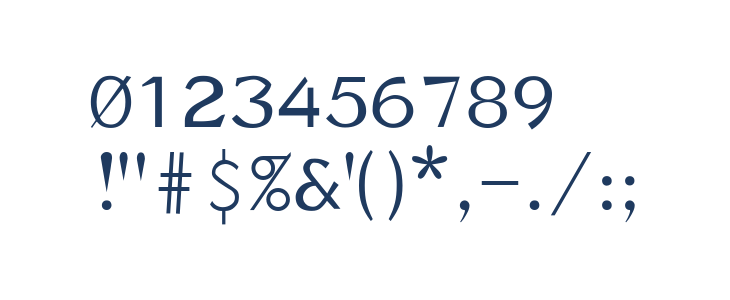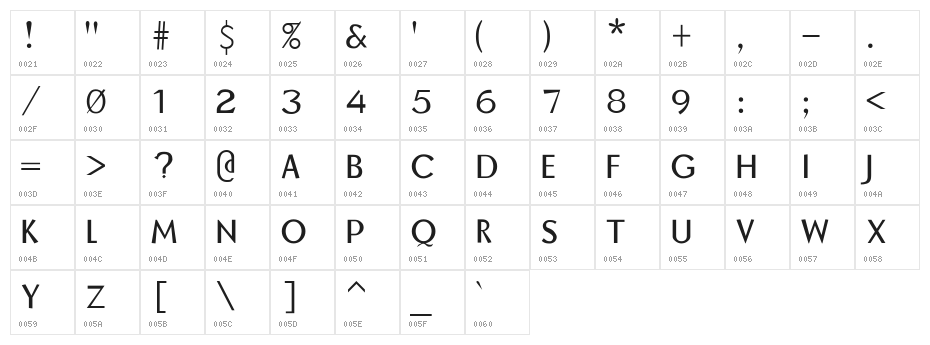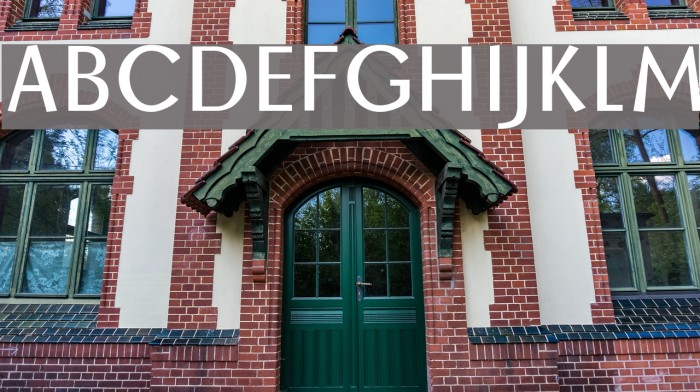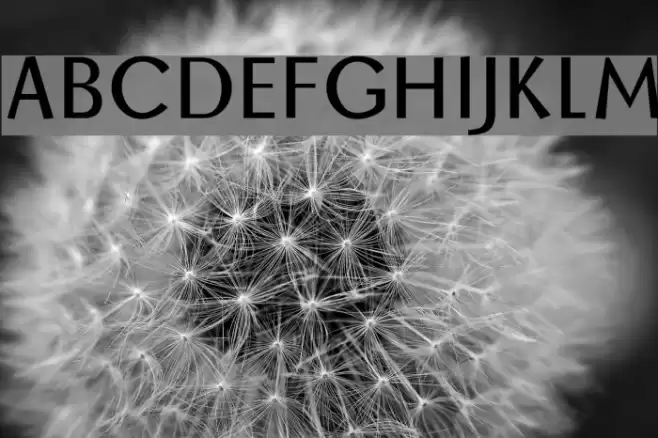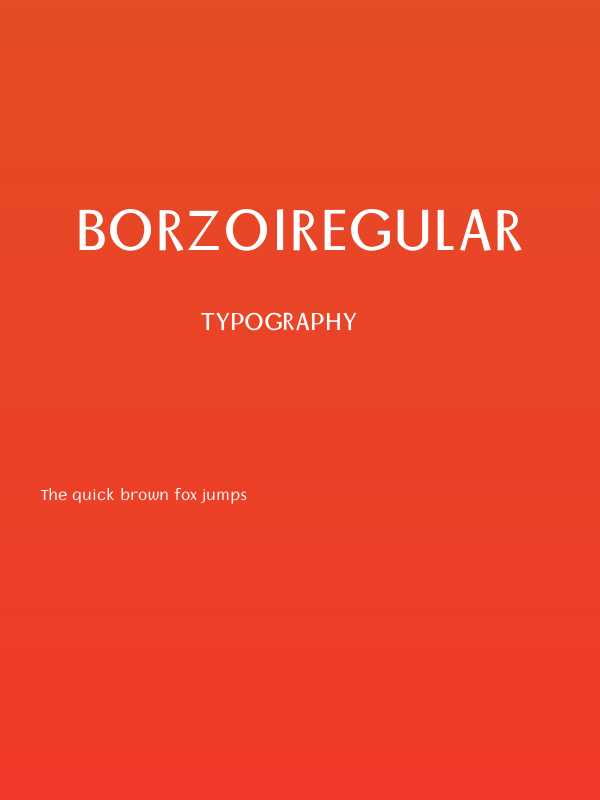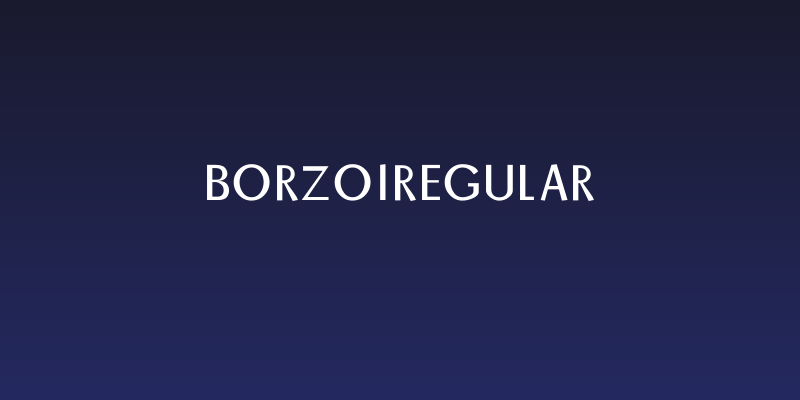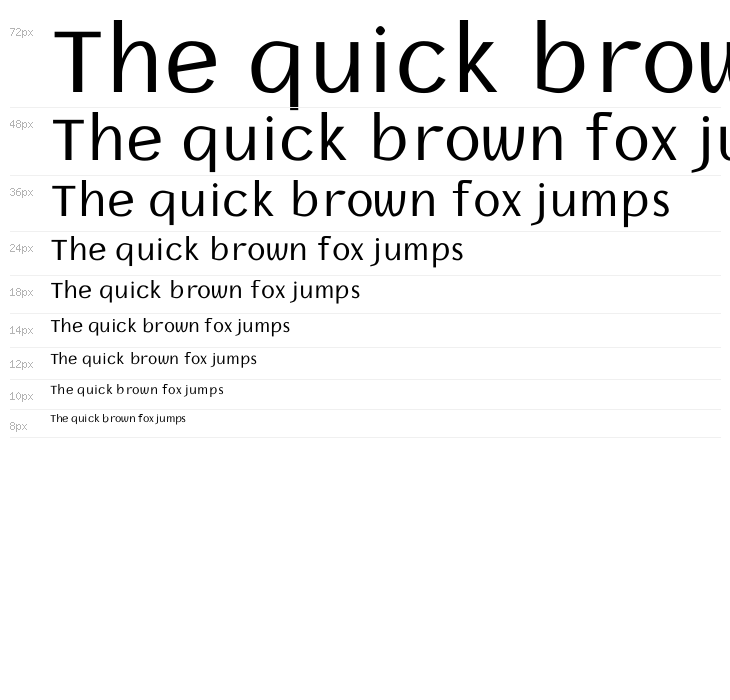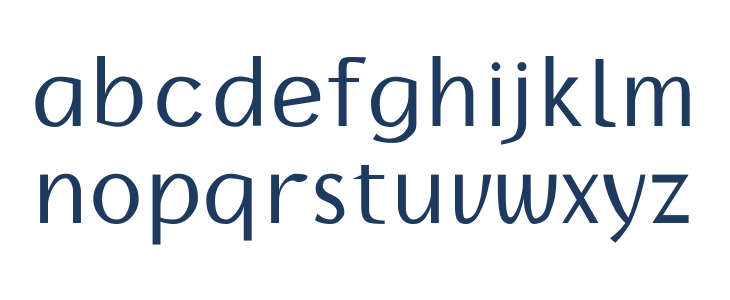
BorzoiRegular Font
BorzoiRegular Description
This font features a clean and modern sans-serif design, characterized by its geometric shapes and uniform stroke widths. The uppercase letters are bold and assertive, while the lowercase letters maintain a consistent height, offering a balanced and harmonious appearance. The numerals are clear and legible, making them suitable for various applications. Special characters are well-defined, adding versatility to the font's usage. Overall, the font exudes a contemporary and professional feel, ideal for digital and print media.
| Proposed Projects | Ideal for branding, web design, advertising, and editorial layouts. |